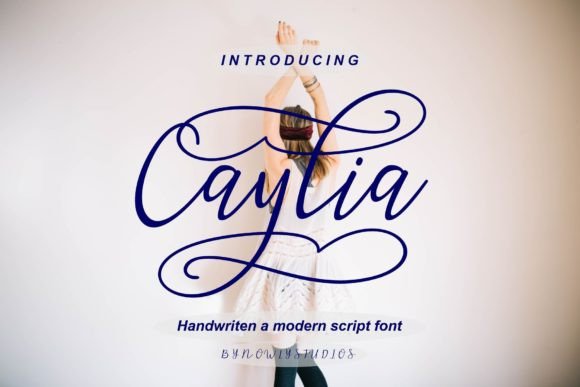
Caylia Font: Elevate Your Design with Elegance and Versatility
In the world of typography, a font can make or break a design project. With the introduction of Caylia Script Font, designers and typography enthusiasts can now unlock a world of creative possibilities. This captivating typeface is designed with elegance and versatility in mind, making it an ideal choice for a wide range of design applications.
What is Caylia Script Font?
Caylia Script Font is a beautiful, script-type font that boasts an abundance of OpenType features. These features allow designers to add a personal touch to their work, making it stand out from the crowd. With Caylia, you can create stunning designs that exude elegance and sophistication.
Key Features of Caylia Script Font
So, what makes Caylia Script Font so special? Here are some of its key features:
- OpenType Features: Caylia has an abundance of OpenType features that can be easily activated in any OpenType-savvy program. This allows designers to access a wide range of alternates, swashes, and stylistic alternates.
- Alternates and Swashes: With Caylia, you can add a touch of elegance to your designs with its charming swashes, also referred to as alternative glyphs. Each letter has been redefined with distinctive beginning and ending swashes, such as the alluring āzā.
- Stylistic Alternates: In addition to swashes, Caylia also offers stylistic alternates that can be accessed in any OpenType-savvy program. This feature allows designers to experiment with different styles and create unique designs.
- Glyph Palette: For a more personalized touch, designers can manually select characters from the Glyph Palette. This feature provides complete control over the typography, allowing for endless creative possibilities.
Using Caylia Script Font in Your Design Projects
So, how can you use Caylia Script Font in your design projects? Here are some ideas:
- Logos and Branding: Caylia’s elegant and sophisticated design makes it an ideal choice for logos and branding projects. Add a touch of luxury to your brand with this beautiful script font.
- Wedding and Event Invitations: Create stunning wedding and event invitations with Caylia Script Font. Its charming swashes and elegant design make it perfect for formal events.
- Packaging and Advertising: Use Caylia to add a touch of elegance to your packaging and advertising designs. Its versatility and customizability make it an excellent choice for a wide range of applications.
- Digital and Print Media: Caylia Script Font is suitable for both digital and print media. Use it to create stunning blog posts, social media graphics, and print materials like brochures and flyers.
Tips and Tricks for Getting the Most Out of Caylia
Here are some tips and tricks for getting the most out of Caylia Script Font:
- Experiment with Different Alternates: Don’t be afraid to experiment with different alternates and swashes. This will help you find the perfect combination to suit your design needs.
- Use it with Other Fonts: Caylia Script Font pairs well with other fonts. Experiment with different font combinations to create unique and visually appealing designs.
- Pay Attention to Kerning: As with any font, pay attention to kerning to ensure that your text is evenly spaced and visually appealing.
In conclusion, Caylia Script Font is a versatile and elegant typeface that can elevate your design projects to new heights. With its abundance of OpenType features, charming swashes, and customizable options, Caylia is an excellent choice for designers and typography enthusiasts. Whether you’re working on a logo, wedding invitation, or packaging design, Caylia Script Font is sure to add a touch of sophistication and elegance.